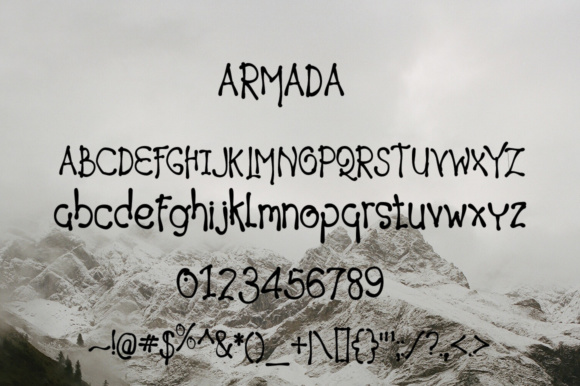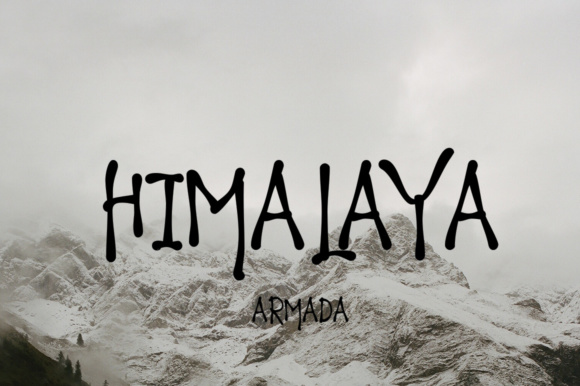
Introducing Armada Font: A Horror-Inspired Display Font
Are you a designer or crafter looking for a unique and eye-catching font to add a touch of horror and elegance to your projects? Look no further than Armada Font, a horror-inspired display font that’s perfect for creating bold and terrifying designs. In this article, we’ll dive into the world of Armada Font, exploring its features, uses, and benefits for designers and crafters.
What is Armada Font?
Armada Font is a horror-inspired display font designed to evoke a sense of fear and unease. With its bold and twisted letterforms, this font is perfect for creating eye-catching headlines, titles, and captions that demand attention. Whether you’re working on a horror-themed project, a Gothic-inspired design, or simply want to add a touch of darkness to your work, Armada Font is the perfect choice.
Key Features of Armada Font
- Horror-Inspired Design: Armada Font features a unique and terrifying design that’s perfect for horror-themed projects.
- Bold and Twisted Letterforms: The font’s bold and twisted letterforms add a touch of elegance and sophistication to any design.
- High-Quality Vector Graphics: Armada Font is designed as a high-quality vector graphic, ensuring crisp and clear rendering at any size.
Uses of Armada Font
Armada Font is a versatile font that can be used in a variety of projects, including:
- Horror-Themed Designs: Use Armada Font to create terrifying headlines, titles, and captions for horror-themed projects, such as movie posters, book covers, and haunted house invitations.
- Gothic-Inspired Designs: Add a touch of elegance and sophistication to your Gothic-inspired designs with Armada Font’s bold and twisted letterforms.
- Halloween-Themed Designs: Create spooky and eye-catching designs for Halloween-themed projects, such as party invitations, decorations, and treats.
- Branding and Advertising: Use Armada Font to create bold and attention-grabbing headlines and titles for branding and advertising projects.
Benefits of Using Armada Font
By using Armada Font in your designs, you can:
- Add a Touch of Horror and Elegance: Armada Font’s unique and terrifying design adds a touch of horror and elegance to any project.
- Stand Out from the Crowd: The font’s bold and twisted letterforms ensure that your designs stand out from the crowd and grab attention.
- Enhance Your Creativity: Armada Font’s versatility and flexibility inspire creativity and experimentation in your designs.
| Font Name | Armada Font |
| Author | jehansyah251 |